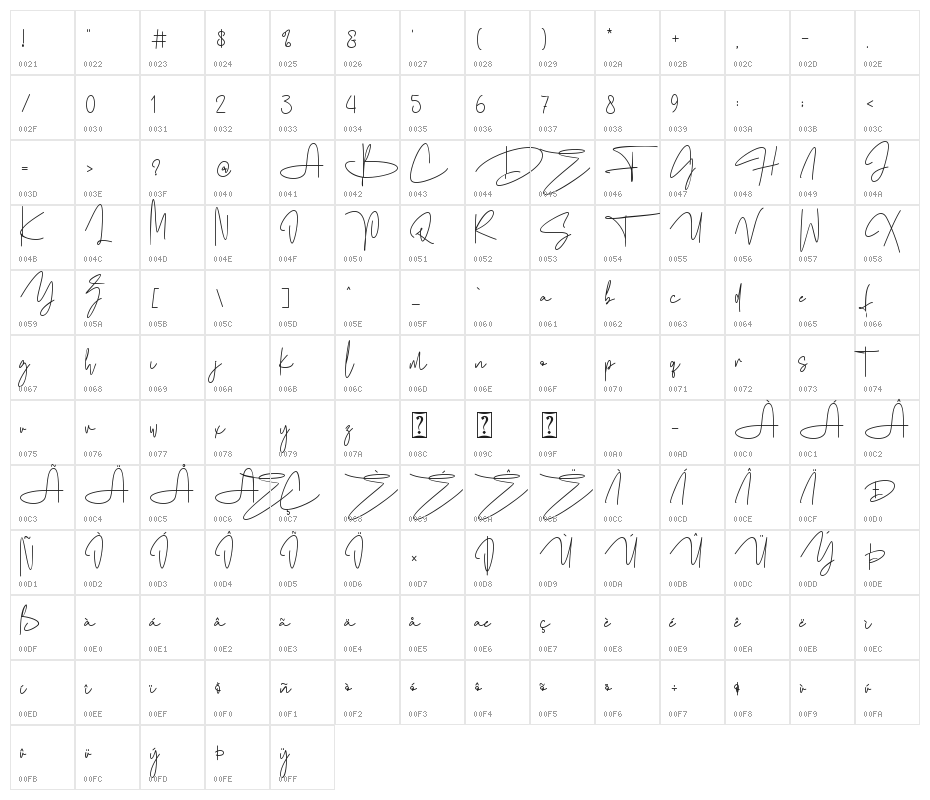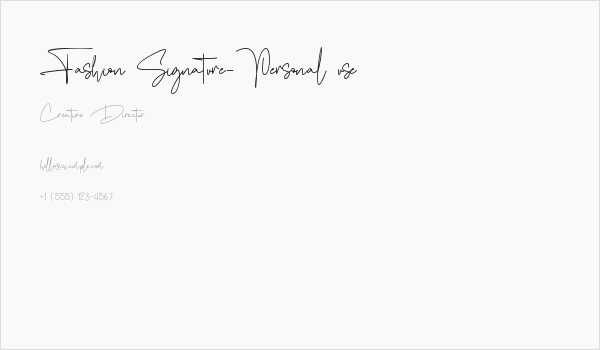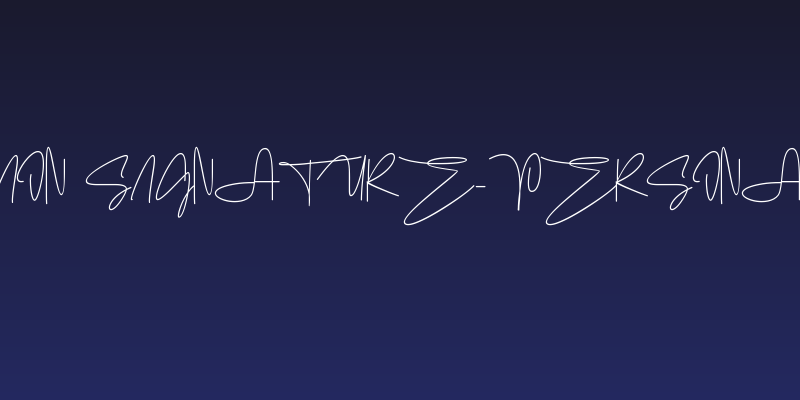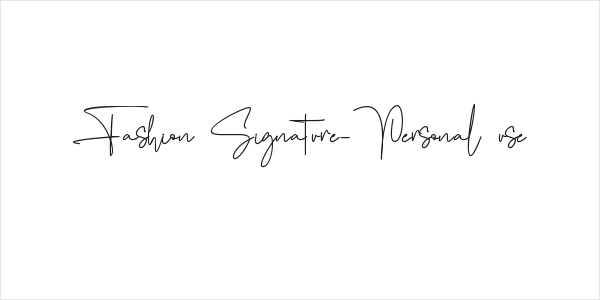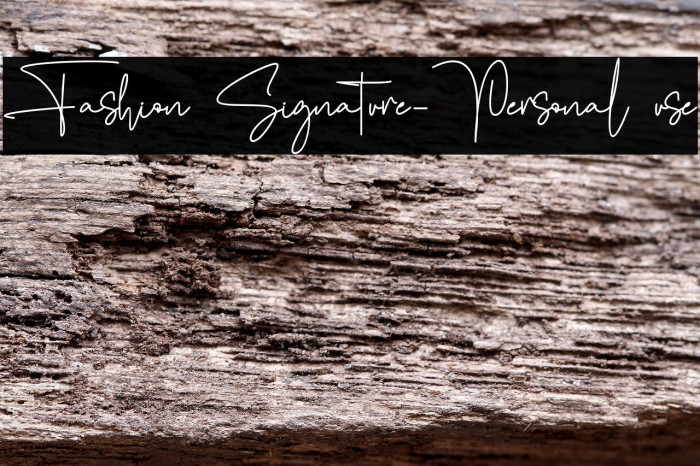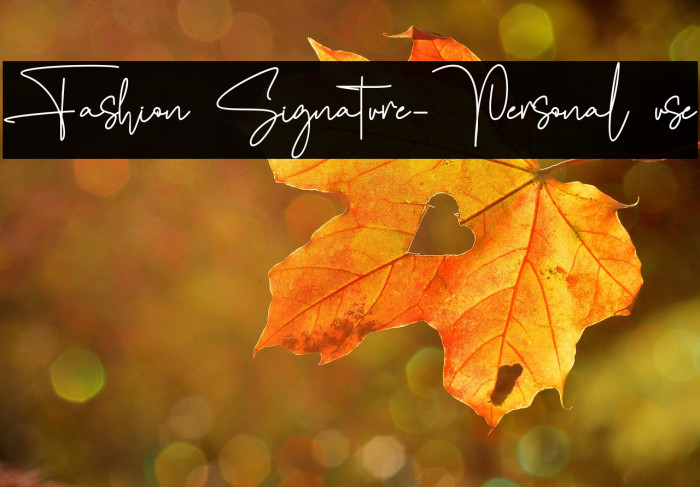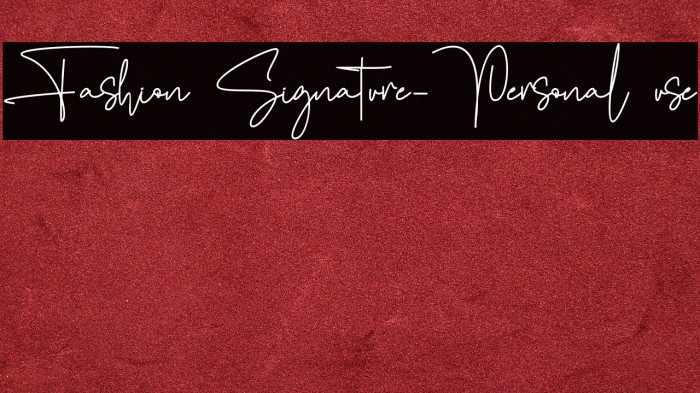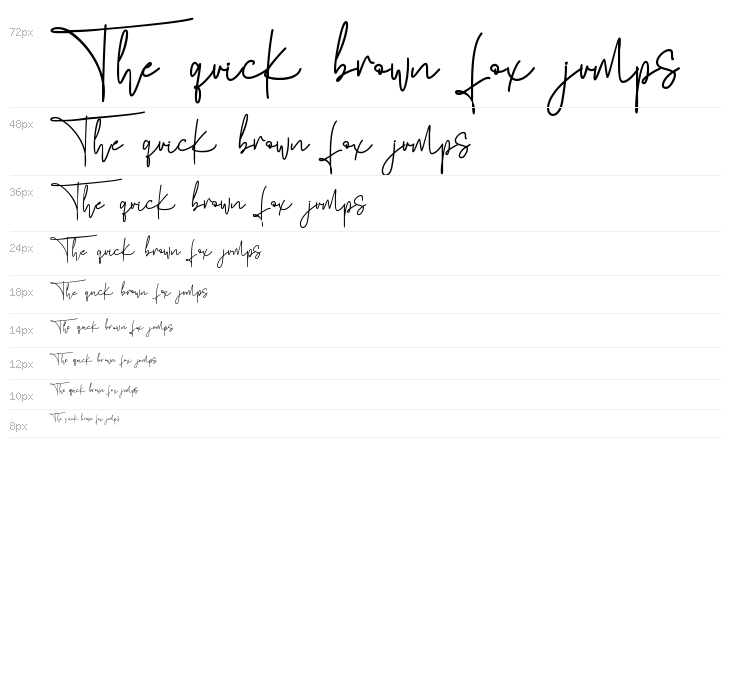
Fashion Signature-Personal use Font
Fashion Signature-Personal use Description
This font exudes a stylish and elegant handwritten aesthetic, characterized by its fluid and continuous strokes. The uppercase letters are tall and slender, with a slight slant that adds a dynamic feel. The lowercase letters maintain a consistent flow, enhancing the script-like quality. Numbers are clear and legible, maintaining the same fluidity as the letters. Special characters are creatively integrated, maintaining the overall aesthetic. This font is perfect for projects that require a personal touch, such as invitations, branding, and social media graphics.
| Use Case | Logos, Headlines, Personal projects |
| Proposed Projects | Ideal for invitations, branding, social media graphics, and personal projects. |